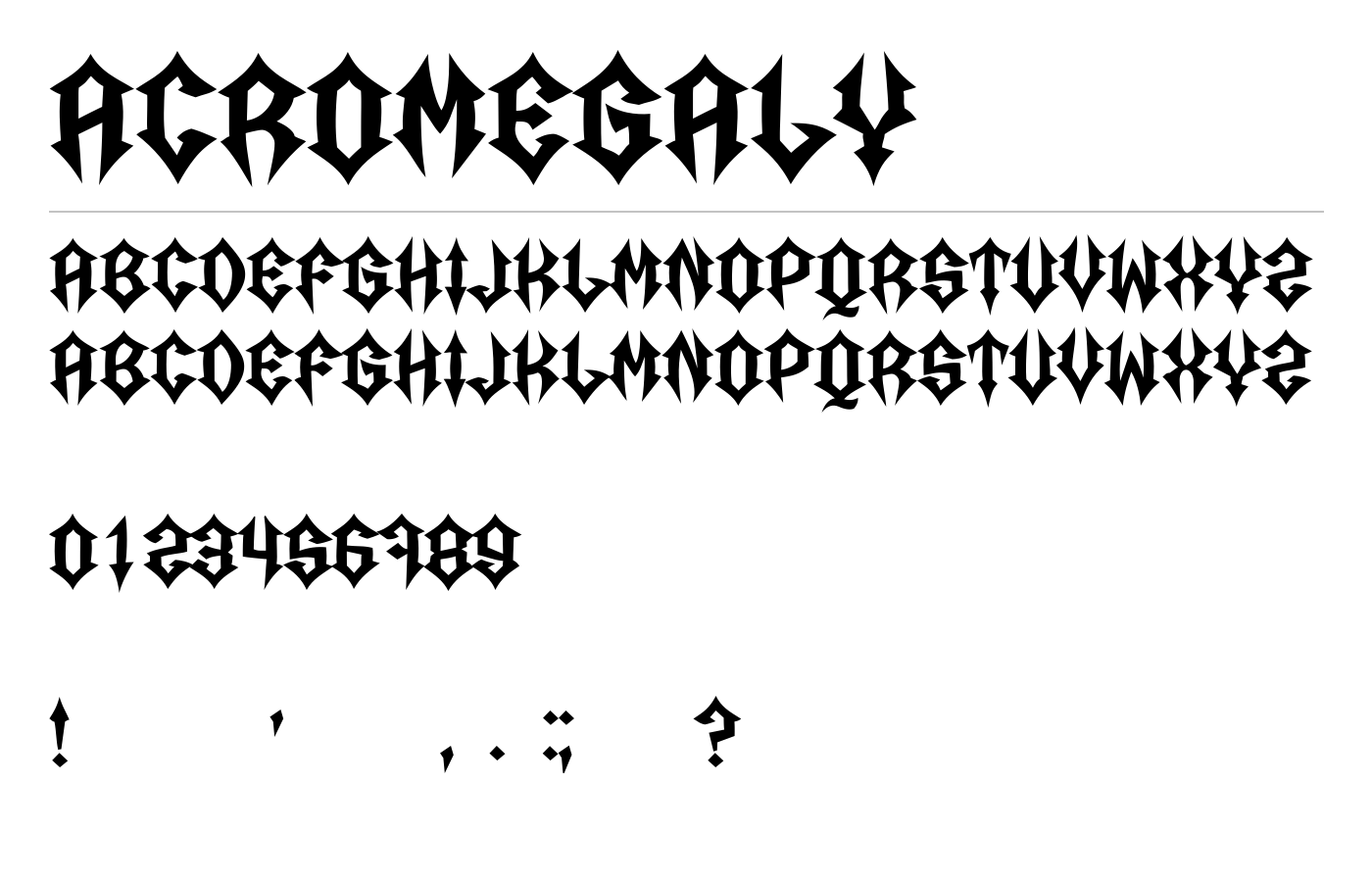
Acromegaly is a bold, decorative serif font with a striking gothic, medieval-inspired style characterized by sharp, angular shapes and high contrast between thick and thin strokes. Its dramatic letterforms and condensed proportions make it ideal for eye-catching headlines, logos, or branding that seeks to convey an intense, edgy, or darkly artistic mood. This font works best in display settings where its unique personality can stand out without sacrificing legibility.
Acromegaly Font
About Acromegaly Font
| Font family | Acromegaly Font |